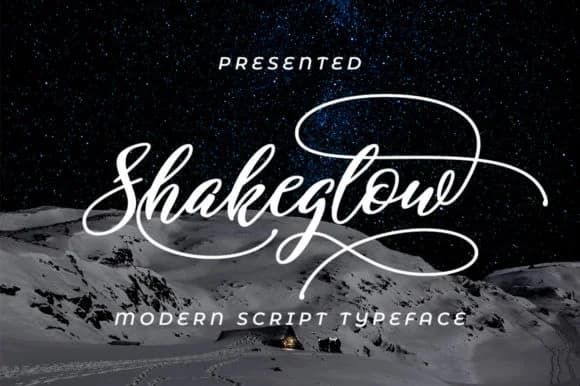
Shakeglow Script Font by alandya typefoundry is an elegant script with refined serif undertones that skillfully balance feminine grace with approachable warmth. The typeface merges contemporary script fluidity with subtle narrow serif elements, creating a sophisticated option for brands that want to project both refinement and accessibility in equal measure. An extensive selection of stylistic alternatives gives designers the flexibility to craft distinctive compositions with originality and visual control, ensuring each application feels uniquely tailored to its context.
This versatile script excels for wedding invitation suites, luxury beauty brand packaging, fashion editorial spreads, and boutique e-commerce product pages where sophistication matters. Whether applied to high-end logotypes, curated magazine layouts, or refined social media graphics, Shakeglow Script consistently conveys understated confidence and contemporary taste. The typeface bridges the gap between formal elegance and accessible warmth, making it equally effective for printed collateral systems, digital brand applications, and any project requiring clear visual distinction and professional polish.
Shakeglow Script Font is a script font that shines as a display or heading face. Pair it with a clean sans-serif or serif font for body text β the contrast creates a clear hierarchy while the two styles stay balanced and easy to read.